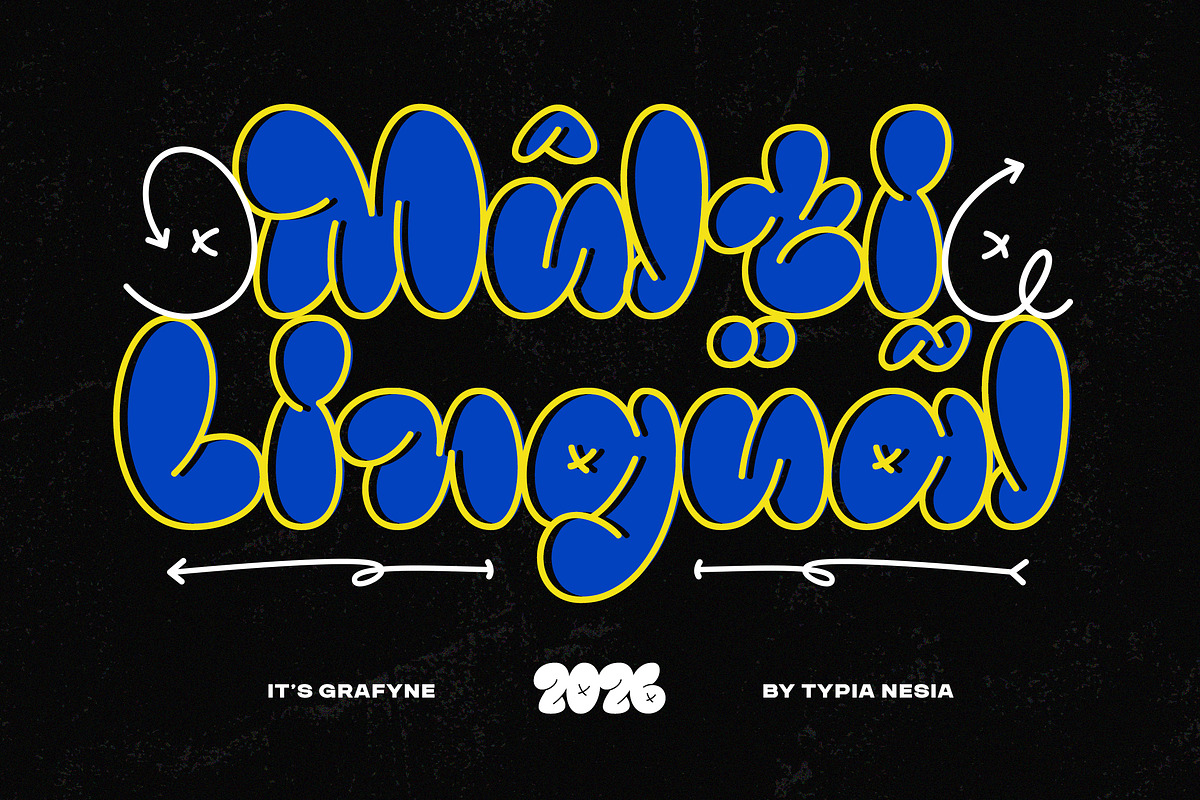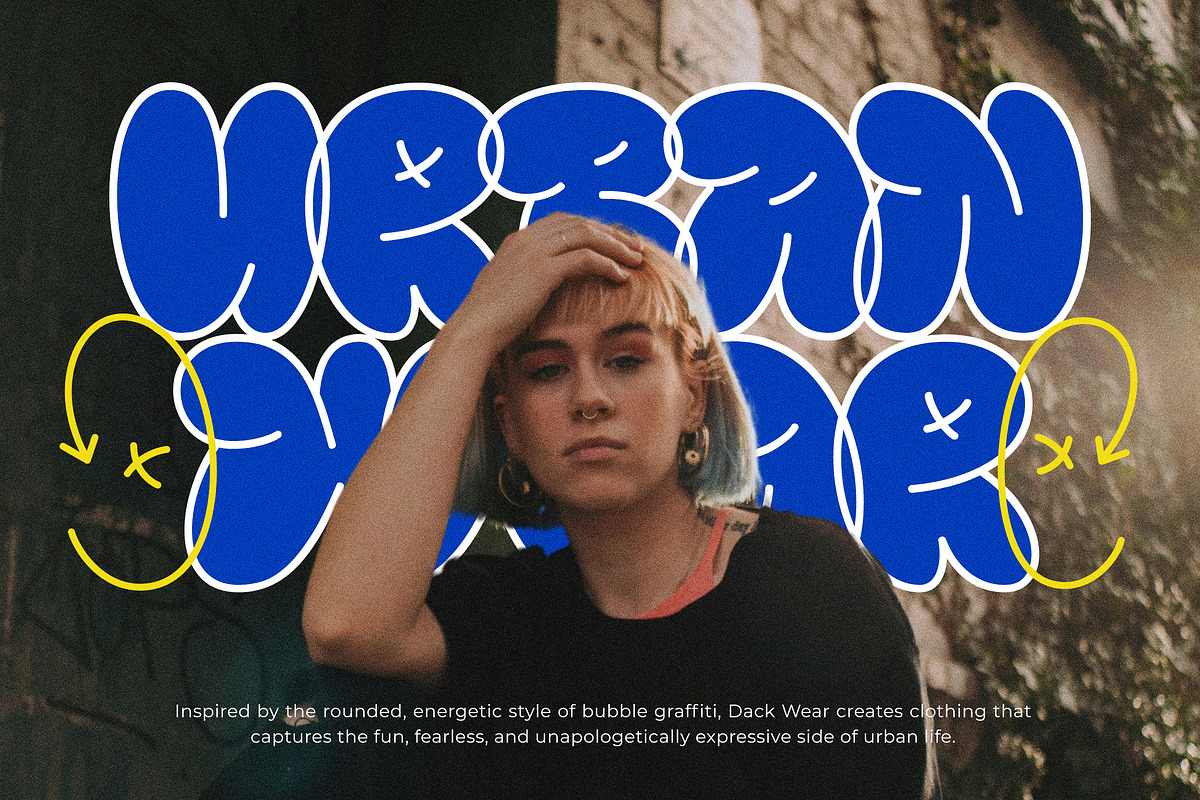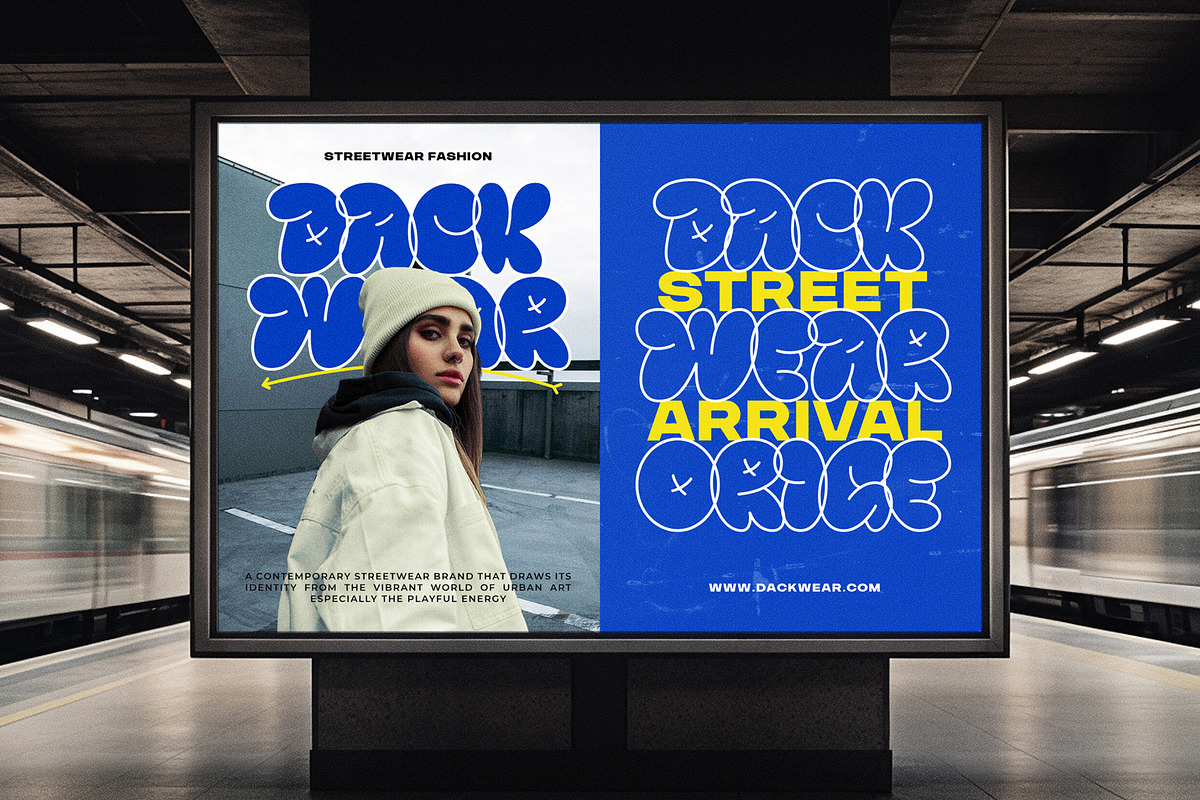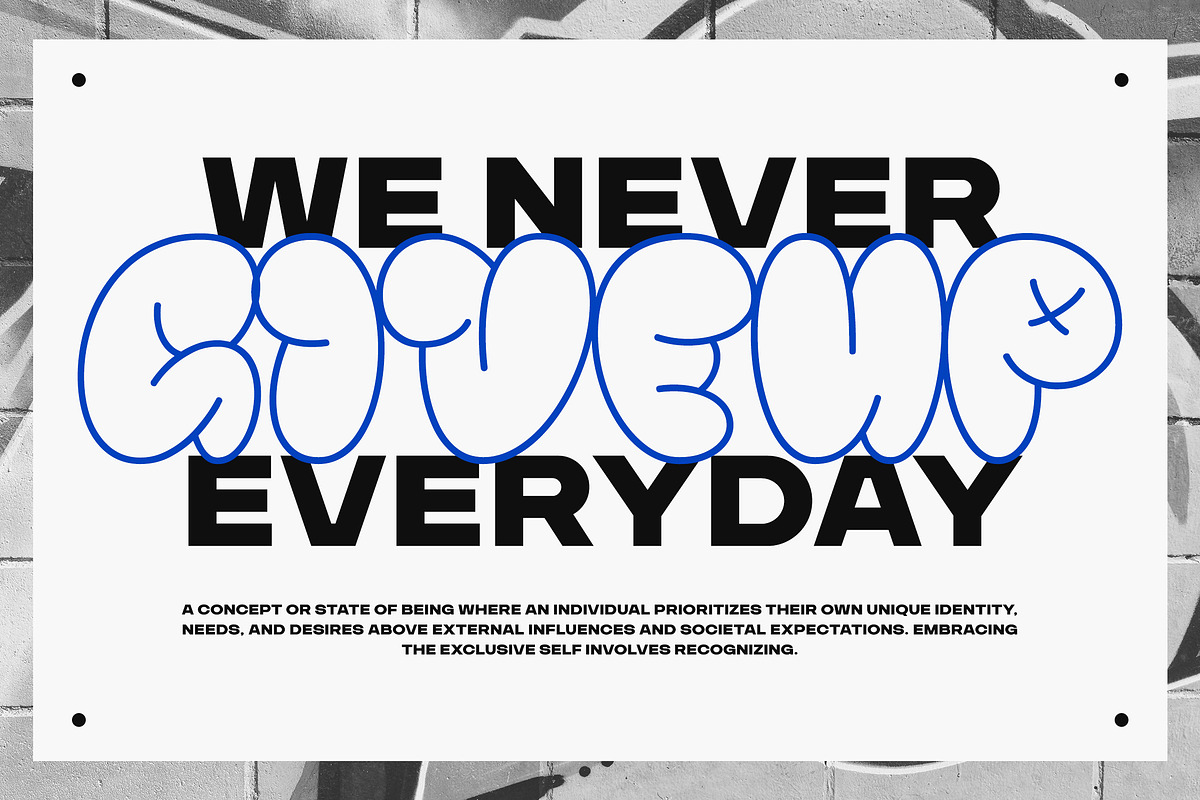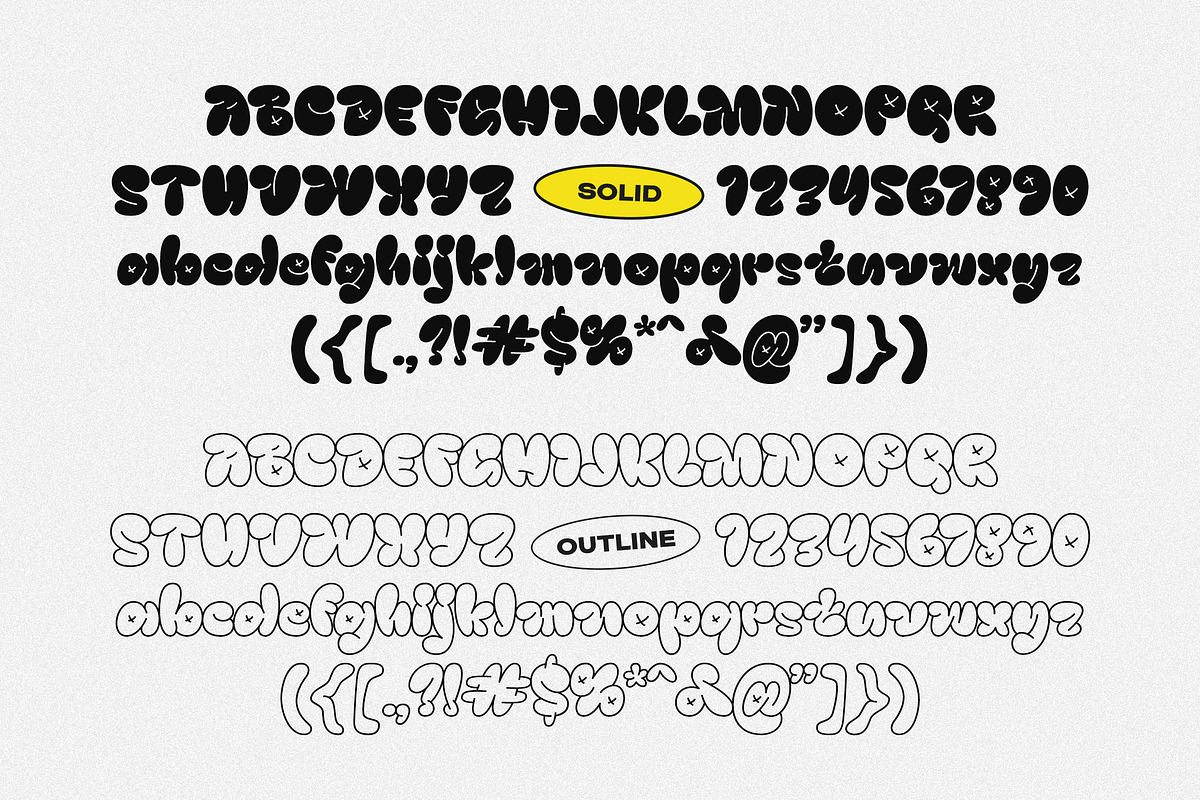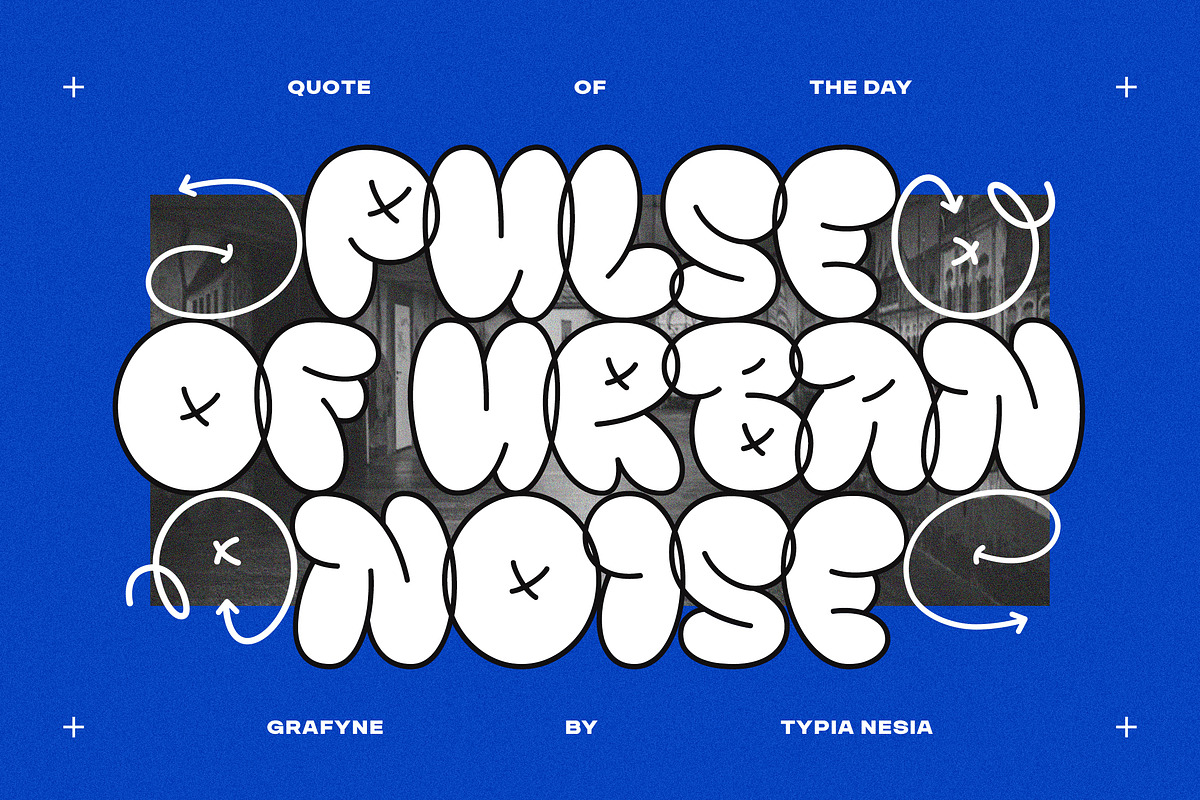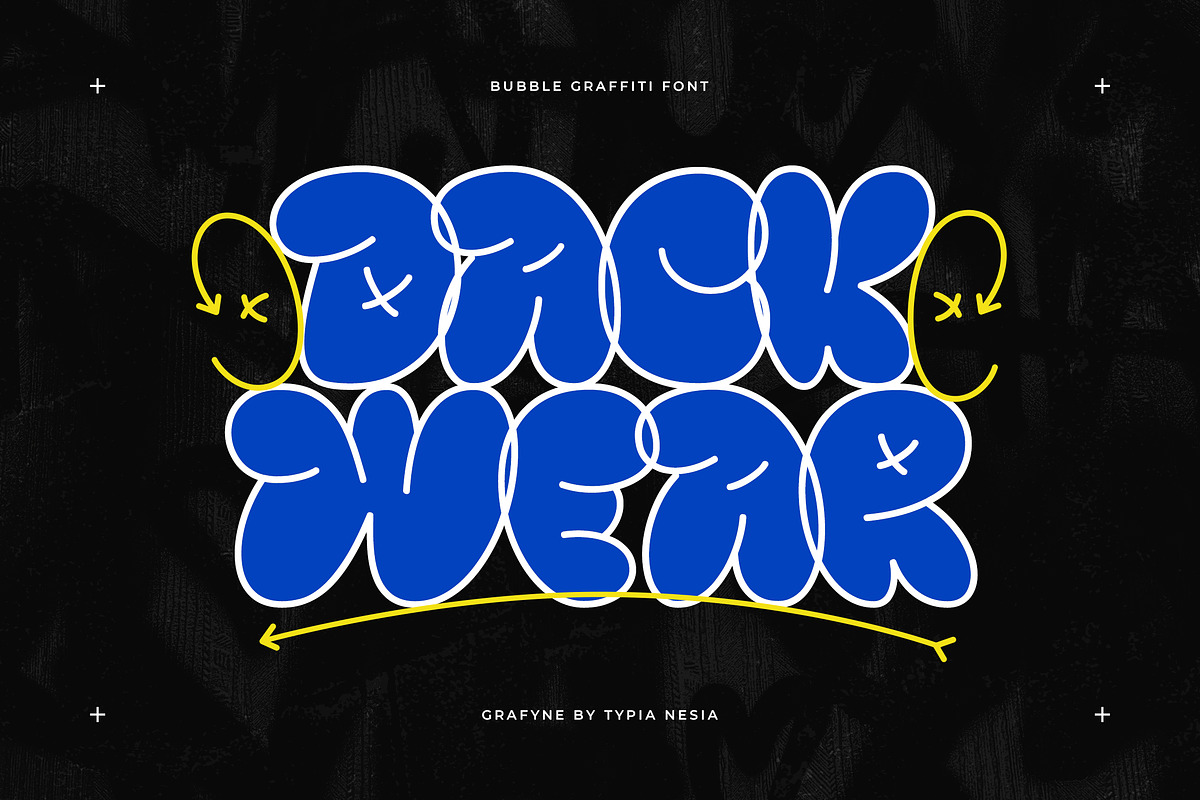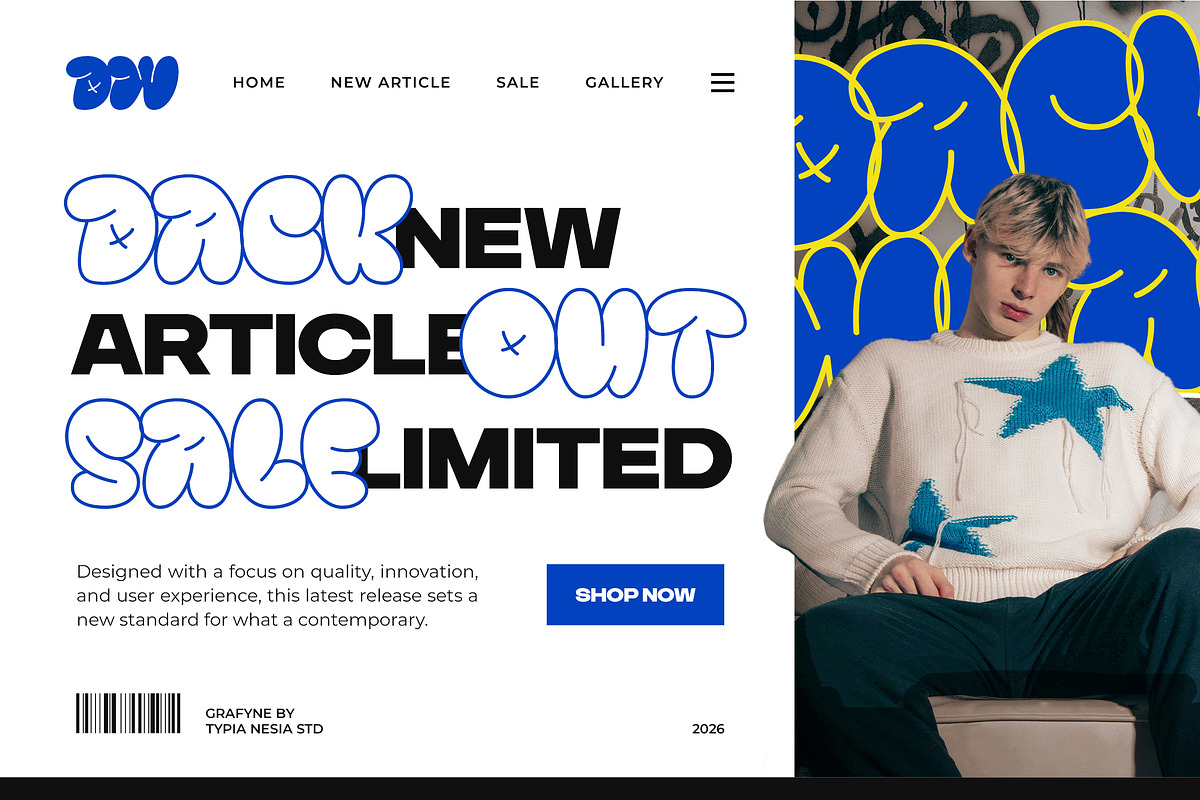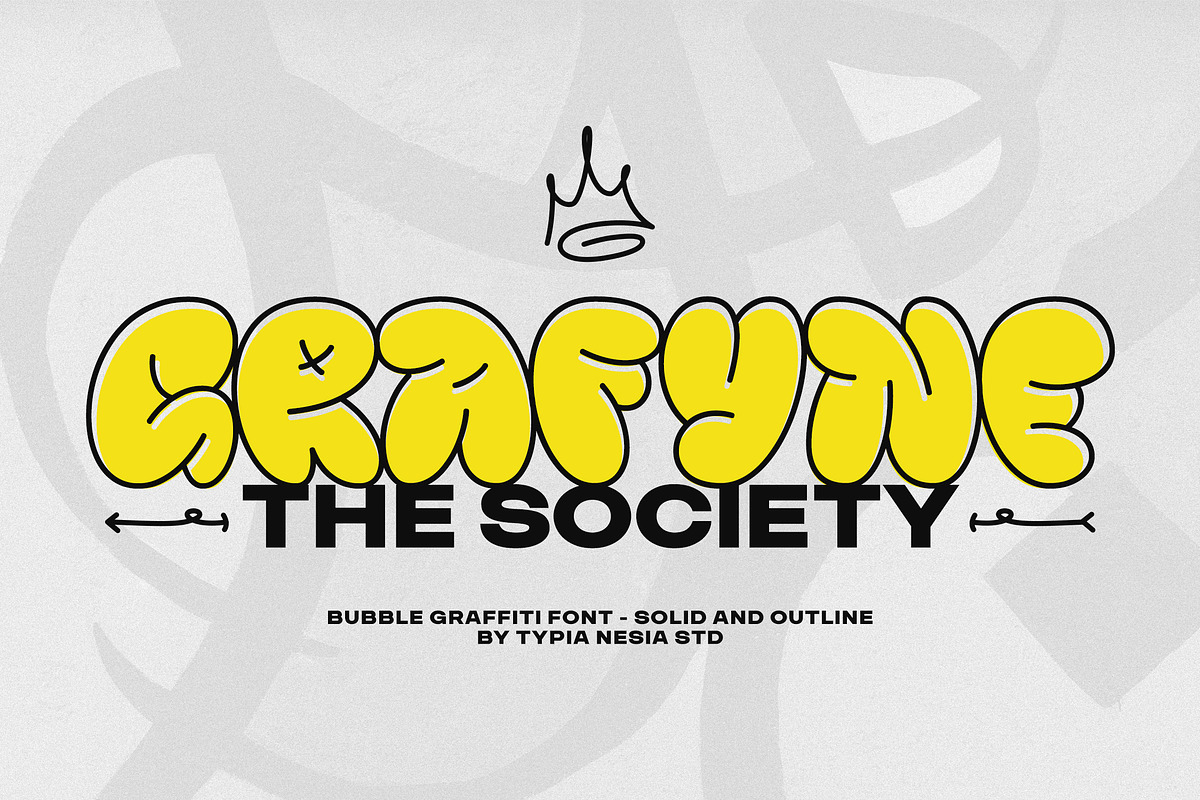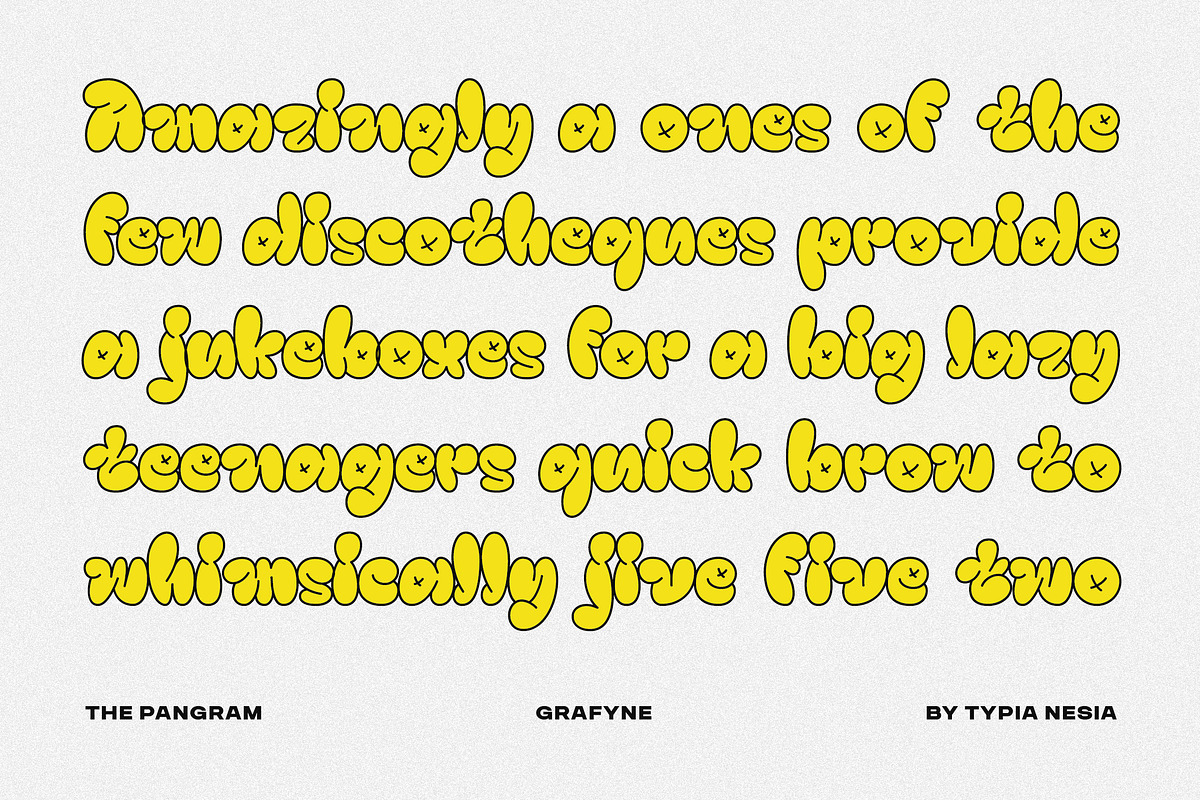
Grafyne - Modern Bubble Grafitti
Grafyne - Modern Bubble Balloon Graffiti Font - Fun Urban Cartoon Logo Font
Grafyne is a modern bubble graffiti font designed to deliver a fun, bold, and urban visual impact. Featuring rounded shapes and playful energy, its bold letterforms and balloon-like curves, including an optional outline style, make it perfect for logos, packaging, posters, and streetwear branding. It is an ideal choice for hip-hop visuals, kids' projects, and comic-style layouts, or any project that needs to blend contemporary street style with cartoon charm. Grafyne brings a lively, expressive, and youthful personality to any creative work, ensuring your headlines are truly eye-catching.